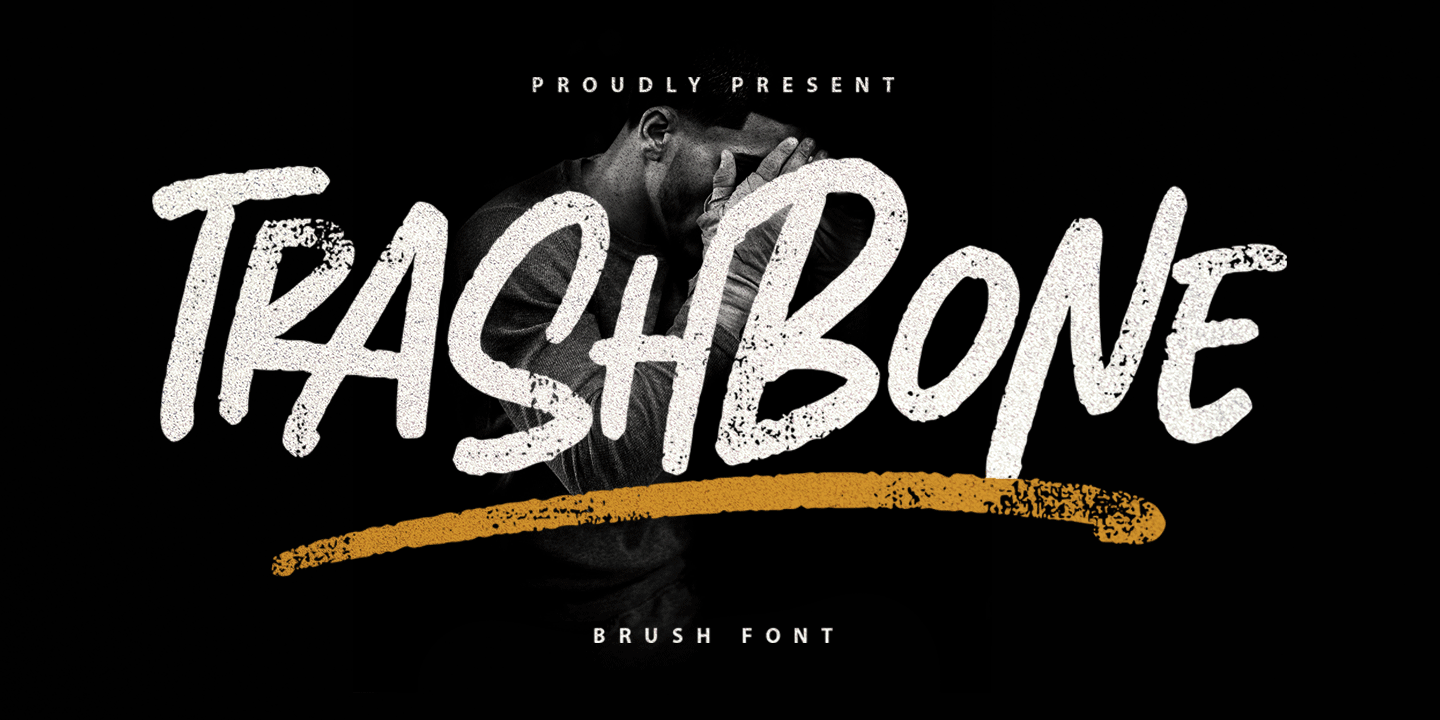
Trashbone Font is perfect for underground music branding, gritty punk rock promotions, alternative streetwear labels, rebellious youth marketing, edgy concert posters, raw urban culture designs, aggressive skateboarding brands, and anti-establishment communications. This raw typeface excels in applications requiring underground authenticity and rebellious attitude that captures the essence of punk culture and street rebellion through gritty visual character and aggressive presence.
What makes Trashbone Font exciting is its uncompromising rawness that perfectly captures the authentic spirit of underground culture and punk rebellion through aggressively distressed letterforms. The font features gritty character construction with rebellious edges and underground authenticity that instantly conveys themes of rebellion, raw energy, and anti-establishment attitude perfect for brands targeting alternative culture markets and underground lifestyle experiences.
The Trashbone Font family includes aggressive distressed variations and punk-inspired styling elements with underground characteristics, offering designers comprehensive tools for creating authentic rebellious compositions. The family provides consistent gritty aesthetic with varying intensity levels for versatile underground communications and rebellious branding projects requiring genuine punk character and raw street appeal.
Trashbone Font Free Download delivers exceptional value for designers working on underground, punk, or rebellious-themed projects requiring authentic street credibility and raw attitude. Whether you're creating punk band merchandise, alternative fashion branding, underground event materials, or rebellious advertising campaigns, this font provides the gritty character needed to dominate alternative markets and capture rebellious audiences.
The rawly crafted letterforms of Trashbone Font ensure maximum impact while maintaining underground authenticity and punk credibility, making it suitable for both large street displays and detailed underground communications. This aggressive typeface combines punk heritage with modern usability standards for outstanding performance in contemporary design projects requiring genuine rebellious character and commanding underground presence.